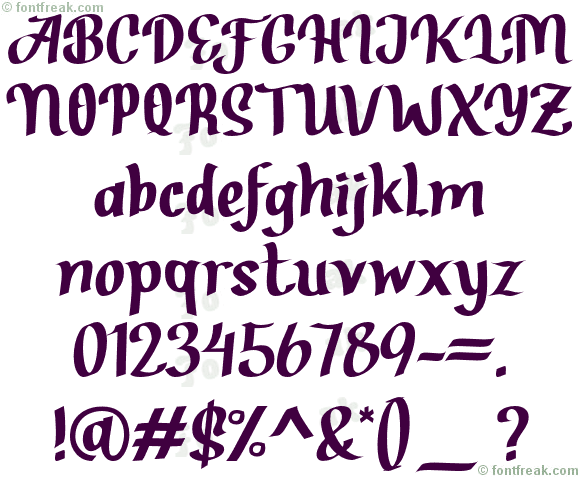
BrotherZoned
BrotherZoned-Italic
BrotherZoned is a striking display font designed by Situjuh Nazara, categorized as a decorative typeface. This font showcases a unique blend of bold strokes and elegant curves, offering a visually captivating experience. The italicized nature of BrotherZoned adds a dynamic flair, while the moderate contrast in stroke weight enhances its legibility and appeal. The spacing between characters is well-balanced, making it suitable for various applications without compromising readability.
Ideal for creative projects, BrotherZoned can be effectively used in wedding invitations, where its stylish flair adds a personal touch. It also works wonderfully for movie posters, capturing attention with its distinctive style. Restaurant menus can benefit from its eye-catching presence, inviting diners to explore the offerings. In addition, this font is perfect for branding purposes, helping small business owners establish a memorable identity. Content creators will find it useful when designing graphics for social media, adding a unique personality to their posts.
The target audience for the BrotherZoned font includes graphic designers looking to elevate their projects, small business owners aiming to create impactful branding, and content creators seeking to enhance their visual storytelling. With its free download option, BrotherZoned provides an accessible resource for those in need of a fresh and engaging typeface.
What makes the BrotherZoned font stand out is its ability to combine elegance with a bold statement. Its decorative elements and unique style set it apart from more conventional fonts, making it an excellent choice for anyone looking to make a memorable impression. Whether you are working on personal or professional projects, BrotherZoned is a versatile font that can elevate your design work and leave a lasting impact.